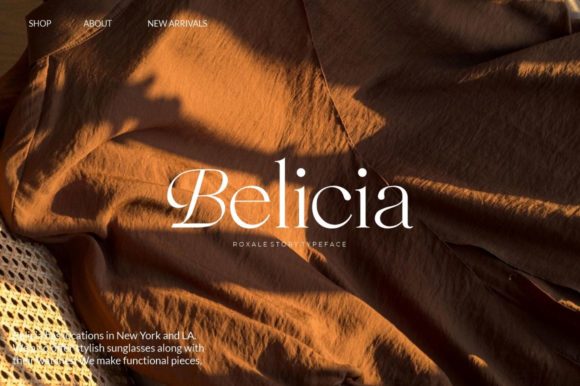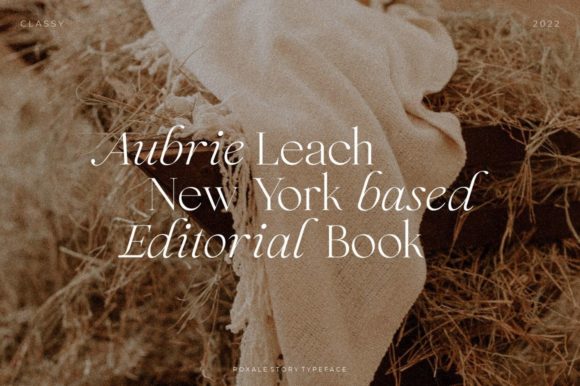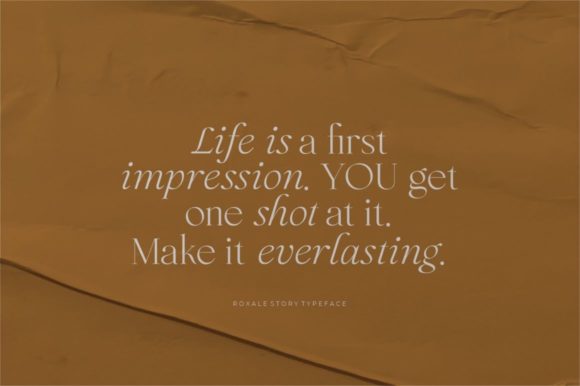
Roxale Story Font
Roxale Story is a gorgeous duo font (script and serif).
It is perfect for luxury logo and branding, classy editorial design, woman magazine, cosmetic brand, fashion promotional, art gallery branding, museum, historical of architectural, boutique branding, stationery design, blog design, modern advertising design, card invitation, art quote, home decor, book/cover title, special events and many more ideas.